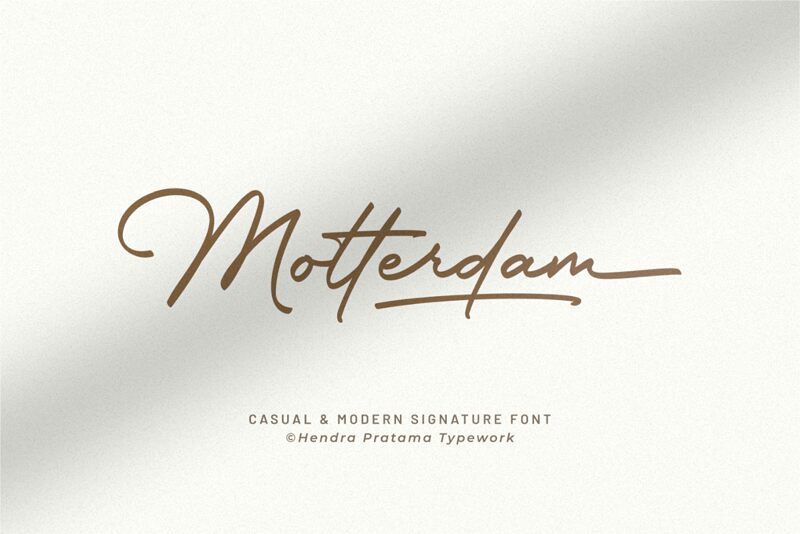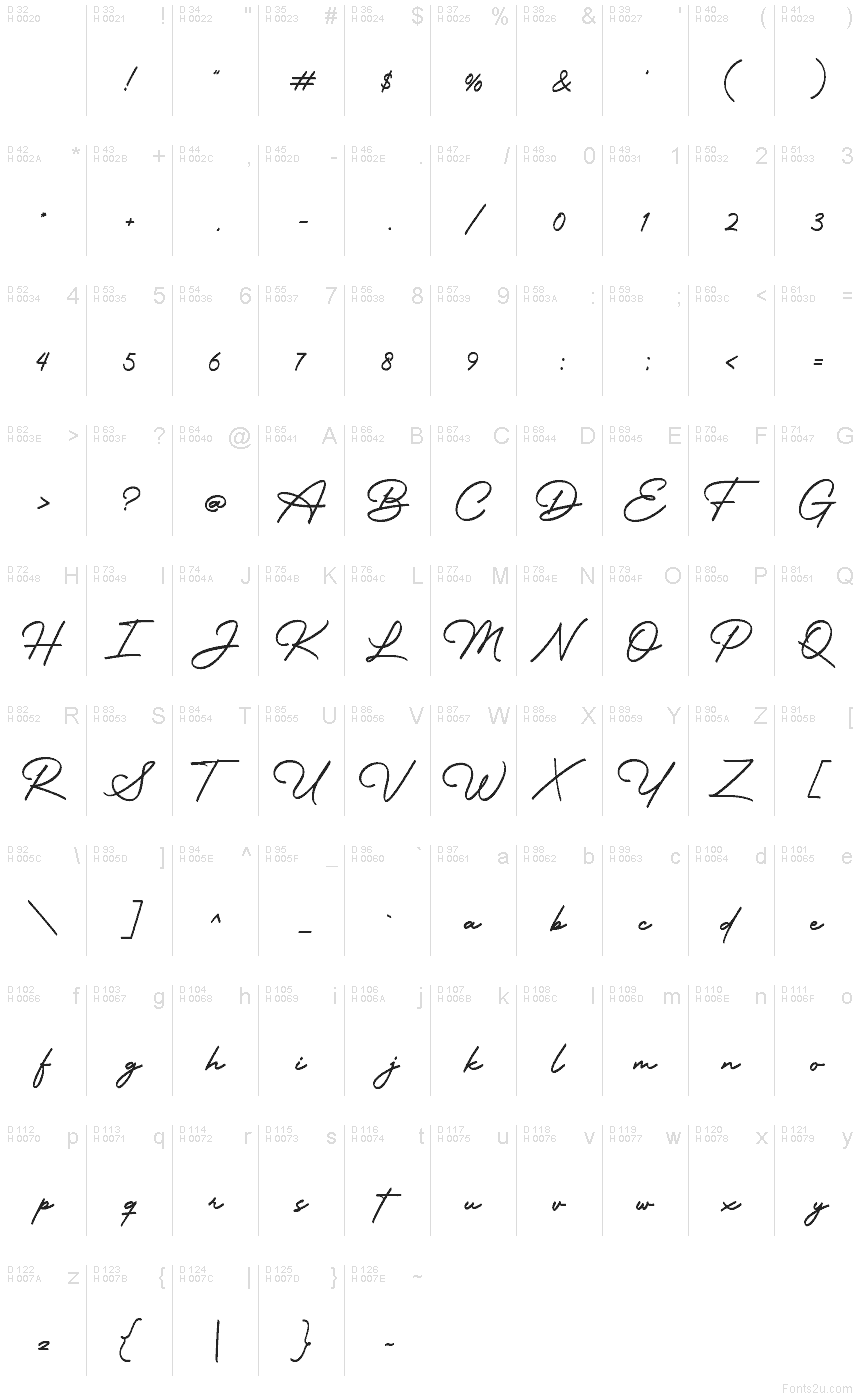
Motterdam
Motterdam font by Hendra Pratama is a free signature-style calligraphy font. It solves a common headache: getting that breezy, handwritten elegance without losing clarity. Motterdam’s strokes feel inky and effortless—light pressure, quick lifts, and just enough grain to read as human—so headlines and names stay graceful at size while still holding up in small tags and captions.
Using Motterdam, your brand marks and short phrases gain a confident, lived-in rhythm. It shines on wedding sets, boutique logos, product packaging, photography watermarks, social posts, and event posters. This free font works beautifully with a crisp sans for body copy; try generous letter spacing on the sans and keep Motterdam slightly larger to let its flow breathe.